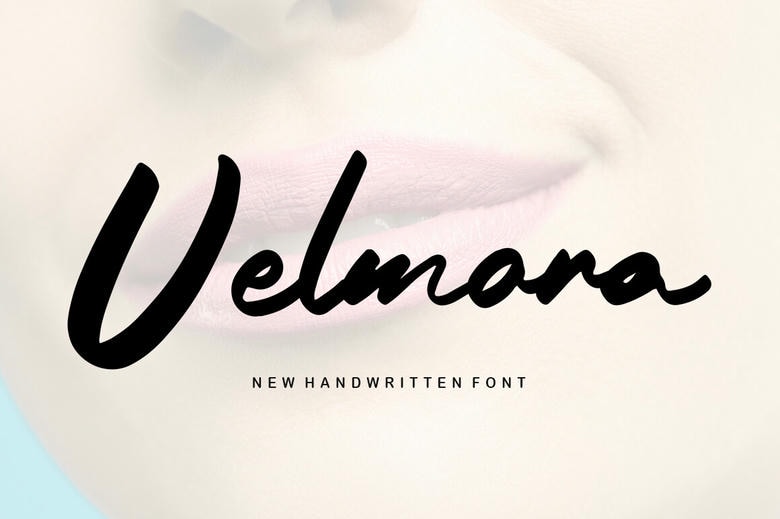
Velmora Font
Velmora is a stylish and elegant handwritten font. It looks great on wedding invitations, thank you cards, quotes, greeting cards, logos, business cards, or any design that could use a handwritten feel.
Velmora Handwritten Script Font